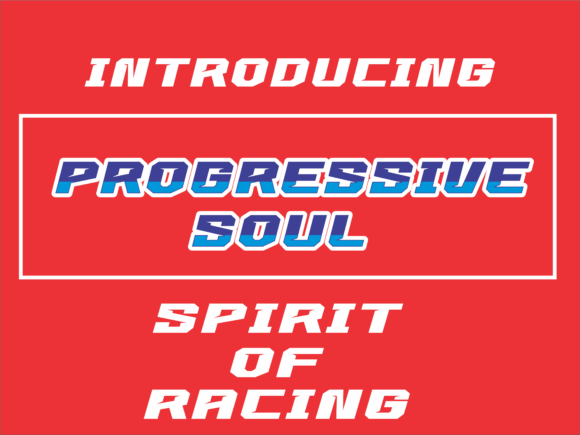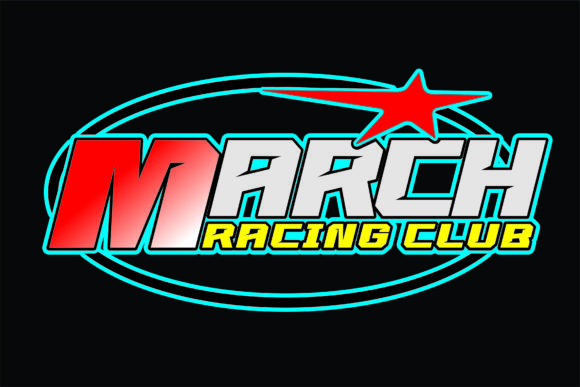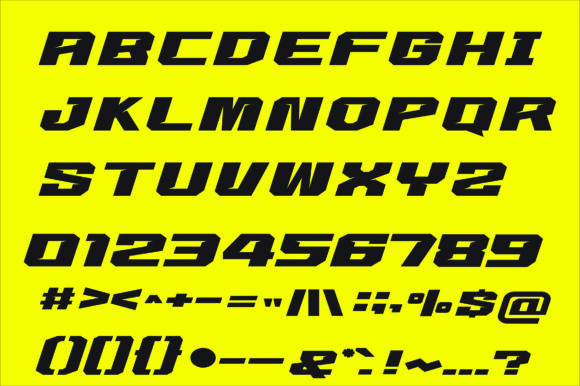
Introduction to Progressive Soul Font
Progressive Soul is a modern and assertive display font.
It will look stunning on any poster flyer or print Use this font for your designs and explore its endless possibilities.
Key Features of Progressive Soul Font
Why Choose Progressive Soul Font?
Progressive Soul Font offers exceptional quality and versatility, making it a valuable addition to your design toolkit. Whether you’re creating for personal projects or commercial use, Progressive Soul Font delivers professional results.